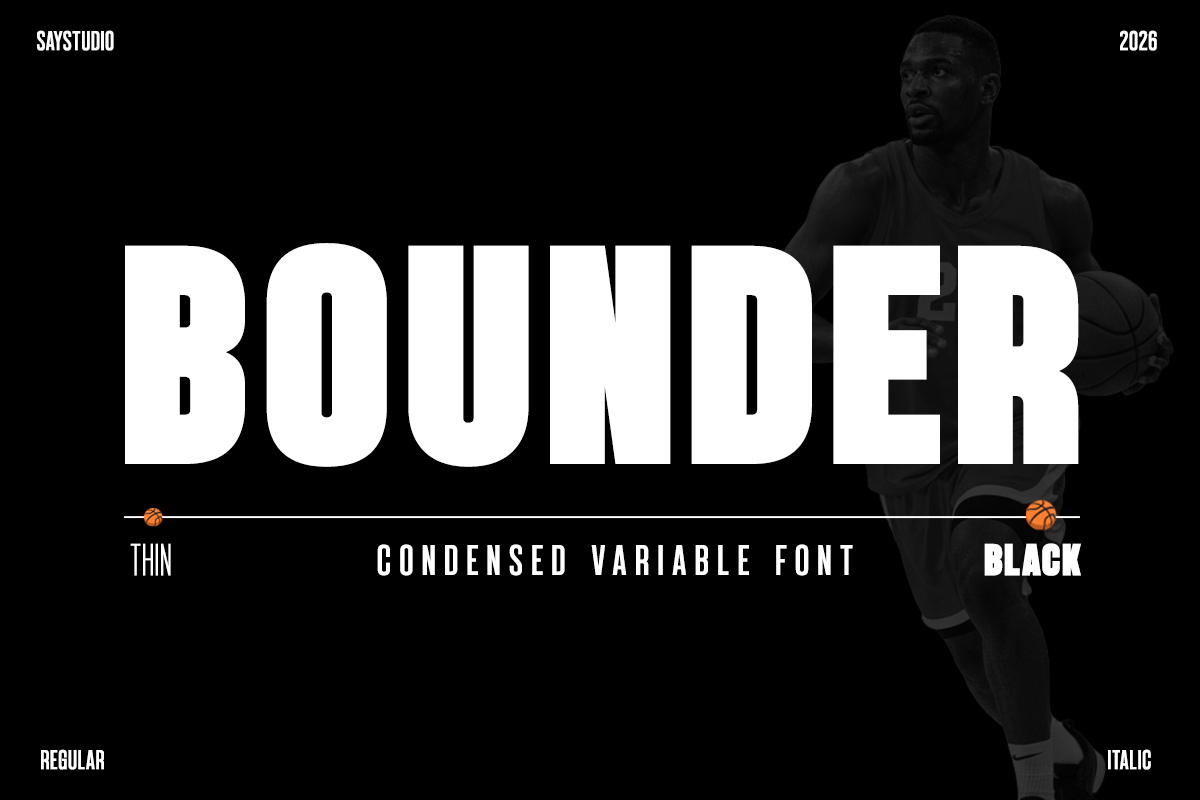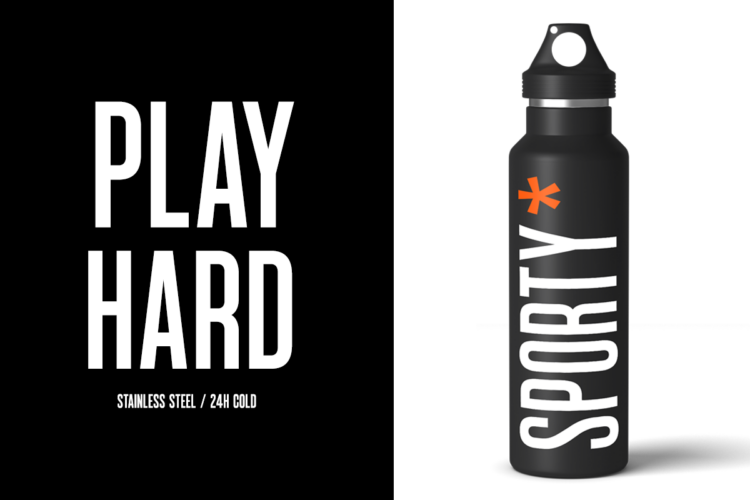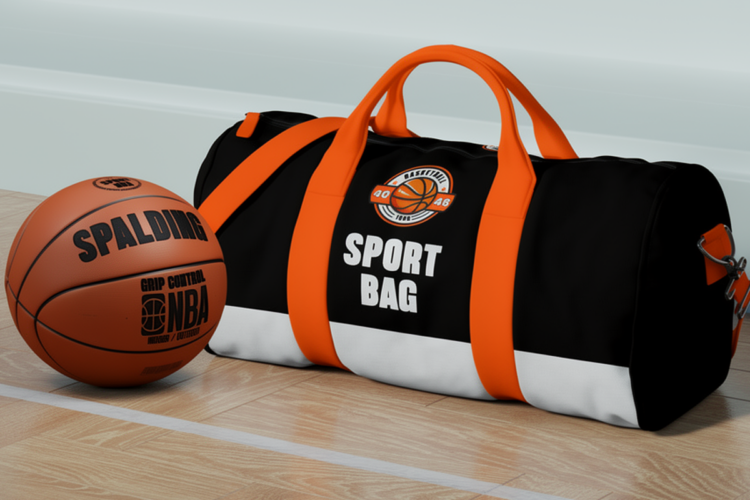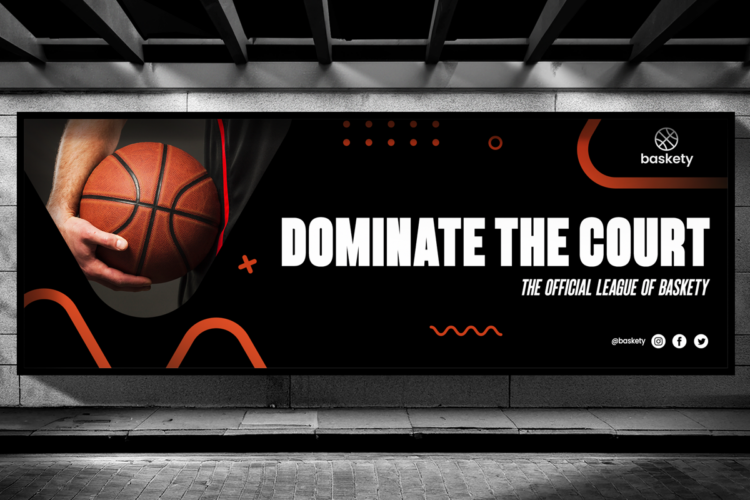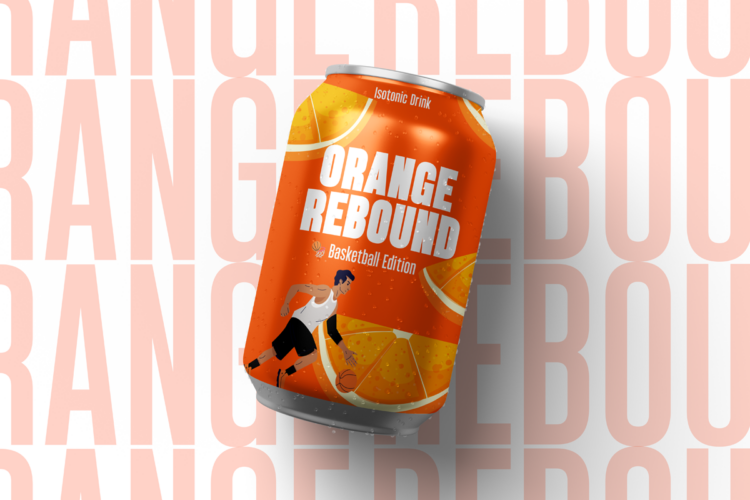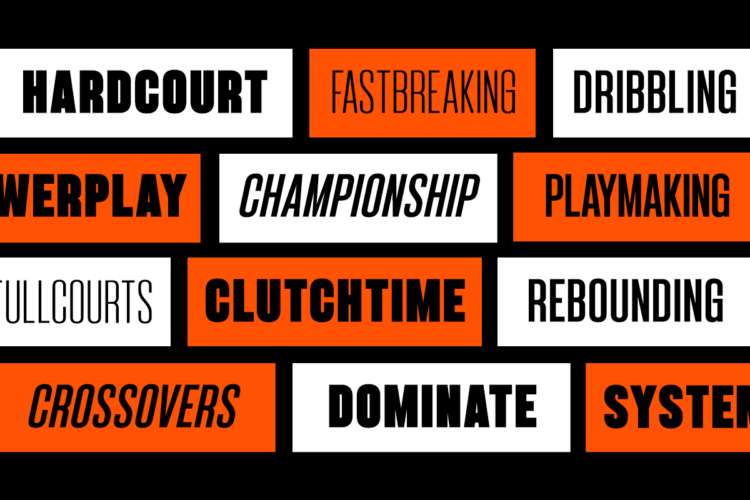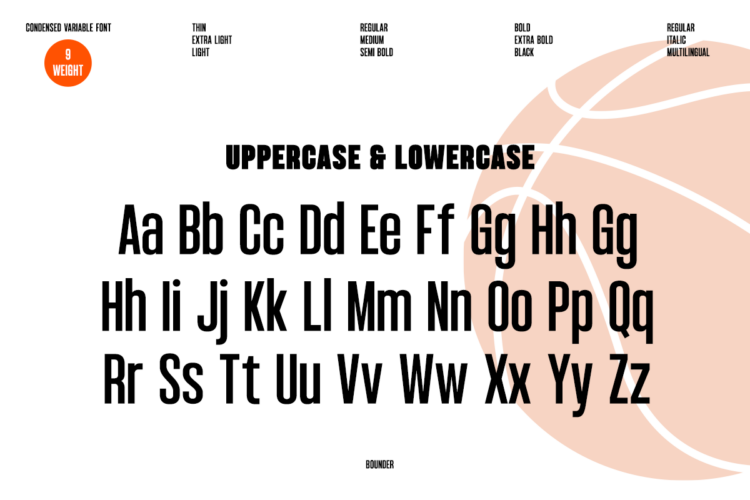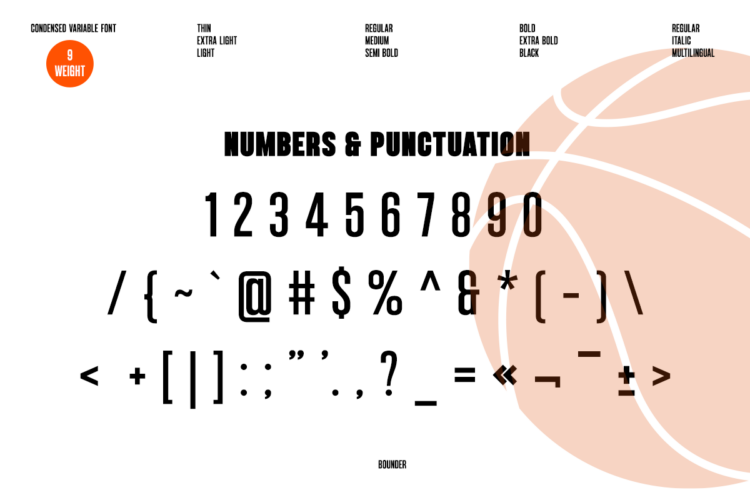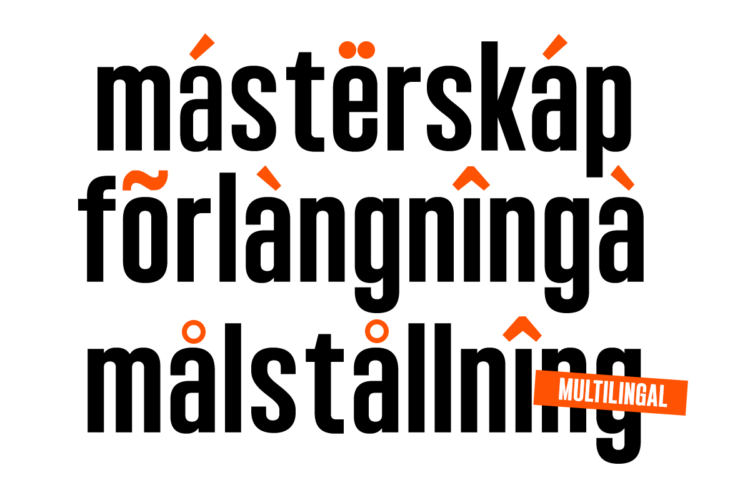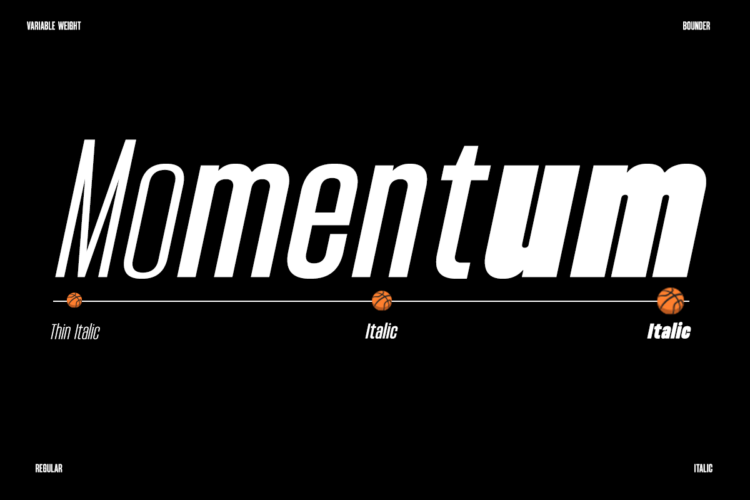
Condensed Variable Font – Bounder
Bounder is a powerful condensed variable sans serif font built for bold visual impact, speed, and modern athletic energy. Designed with tight proportions, strong vertical rhythm, and clean geometric balance, Bounder delivers a commanding presence that instantly grabs attention. Its condensed structure allows designers to pack more message into limited space while maintaining outstanding readability and visual punch.
Engineered as a variable font with a wide weight range from Thin to Black, Bounder offers extreme flexibility for branding systems, sports identity, editorial layouts, motion graphics, advertising, and digital media. Whether used for headlines, posters, apparel graphics, social media visuals, web banners, UI displays, packaging, or promotional campaigns, this font adapts effortlessly to dynamic design demands with sharp clarity and striking contrast.
Perfect for sports branding, esports teams, streetwear labels, fitness brands, event promotions, technology startups, and bold corporate identities, Bounder empowers designers to craft energetic, high-impact typography that feels modern, confident, and competitive. Its condensed proportions and strong character make it ideal for projects that demand speed, power, and visual authority.